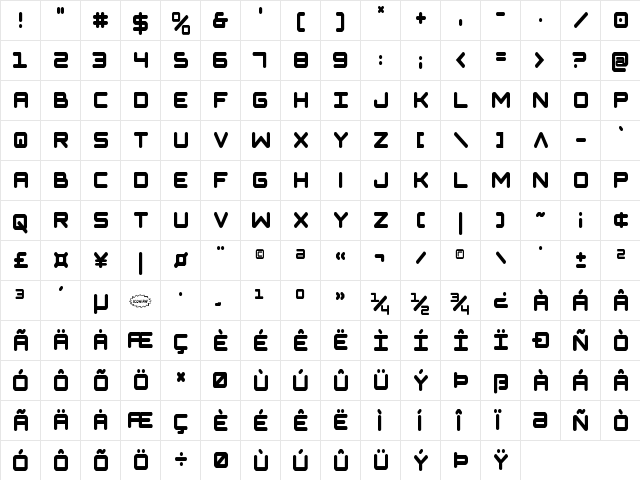
NGC 292 Condensed Regular
Design Context for NGC 292 Condensed Typeface
NGC 292 Condensed takes a measured approach to typography — its balanced proportions and neutral character make it a reliable workhorse for both digital and print work. Its narrow stance lets it pack a punch even in space-constrained designs.